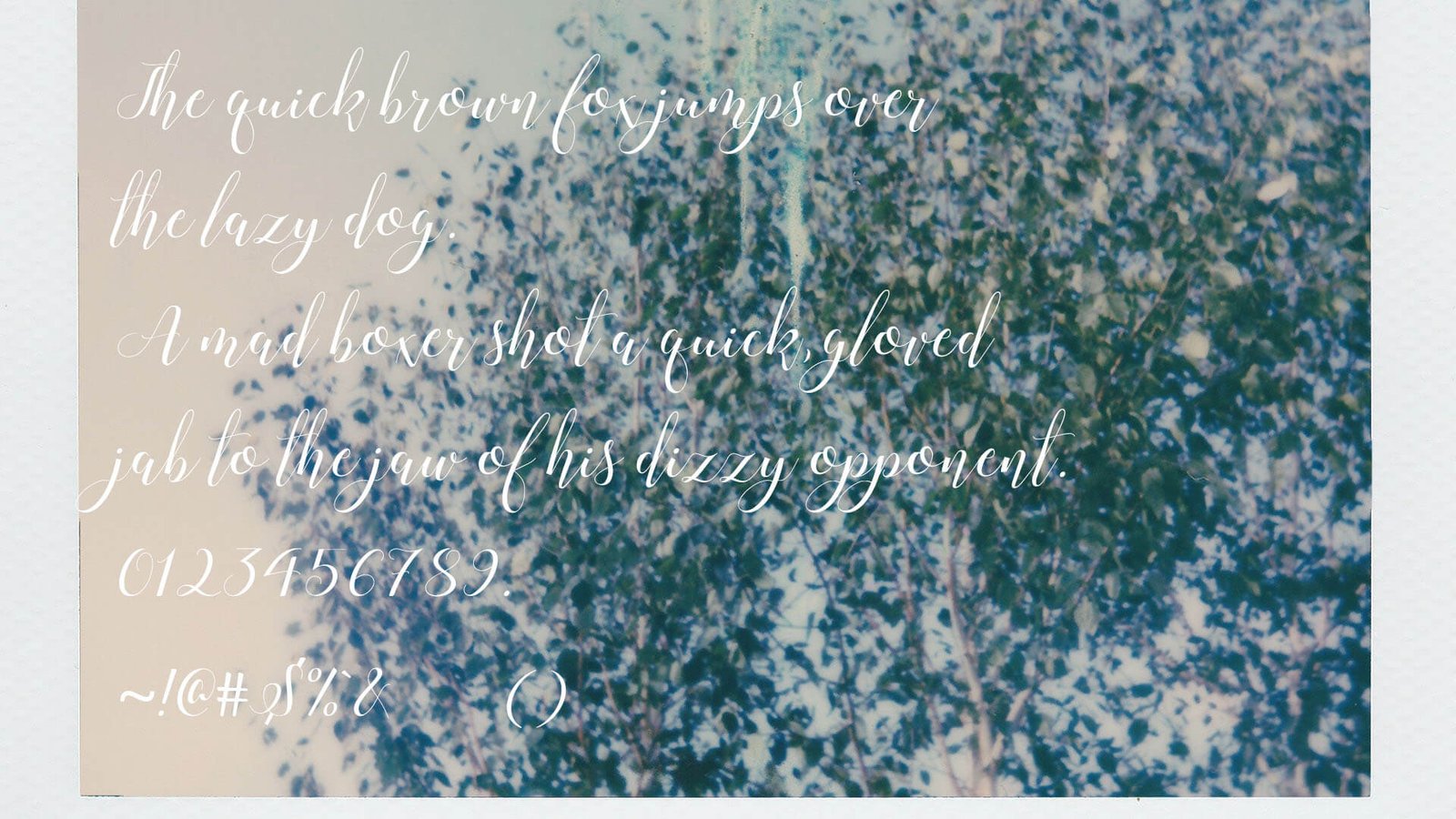
Montic font is from the Calligraphy typeface family. Its designer and publisher is MissinKlab studio. This font has a very stylish design and it contains curly swashes. This font is perfect for modern designs and projects. The aim of designing this font is to design such a font that will be perfect for modern-day projects and designs.
This font is very classy and unique as compared to other handwritten and script fonts. Montic font generator is also available online to check the appearance of any text in this font style and shape. It will be a great font for your future designs.